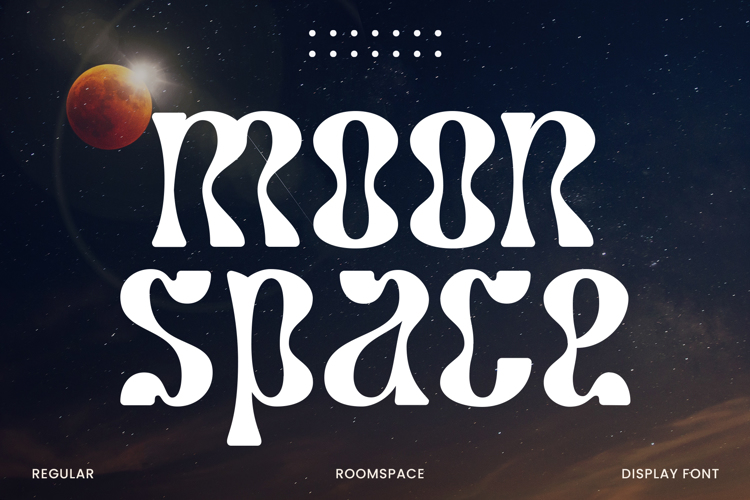
Moonspace is a unique display sans-serif font with a captivating wave-like character on each letter. Despite its slightly taller height, this font remains highly legible and suitable for a wide range of designs.
With its distinctive design that sets it apart from other sans-serif fonts, Moonspace adds an artistic touch to your designs. It’s perfect for use on posters, magazines, brochures, and other creative projects.
Crafted with precision and balanced letter proportions, Moonspace delivers a professional and eye-catching look. It’s suitable for use in a variety of designs, from modern to classic.